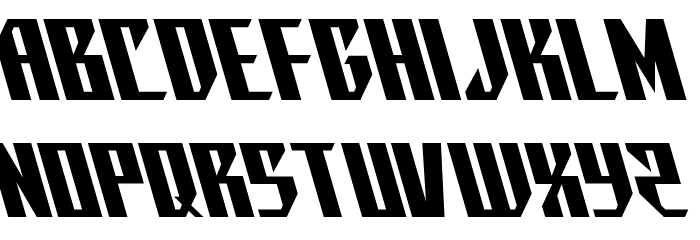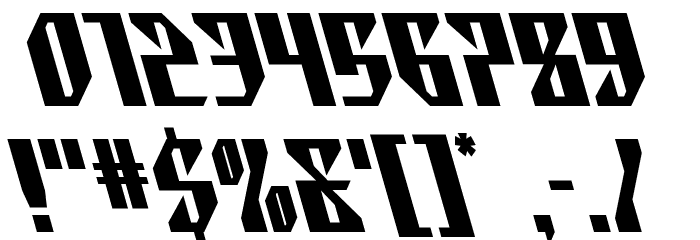
Yonder Blue Leftalic Font
This font features a bold, angular design with a distinct slant to the left, giving it a dynamic and edgy appearance. The characters are constructed with sharp, geometric shapes that create a sense of movement and energy. The uppercase and lowercase letters maintain a consistent style, with the uppercase being more pronounced and the lowercase slightly more compact. Numbers and special characters follow the same angular and bold design, ensuring uniformity across all elements. The font's unique style makes it stand out, suitable for projects that require a modern and unconventional look.
A bold, angular font with a leftward slant, featuring sharp geometric shapes.
- Font: Yonder Blue Leftalic
- Proposed Projects: Ideal for branding, posters, and modern digital designs that require a bold statement.